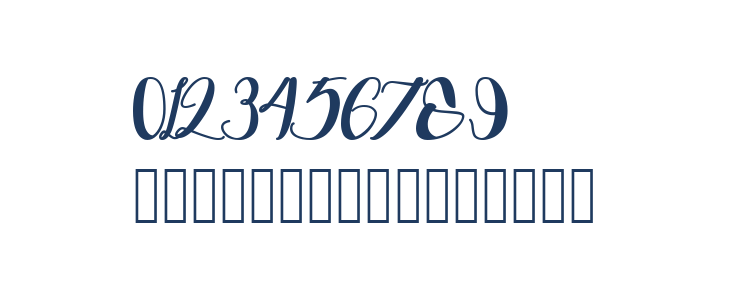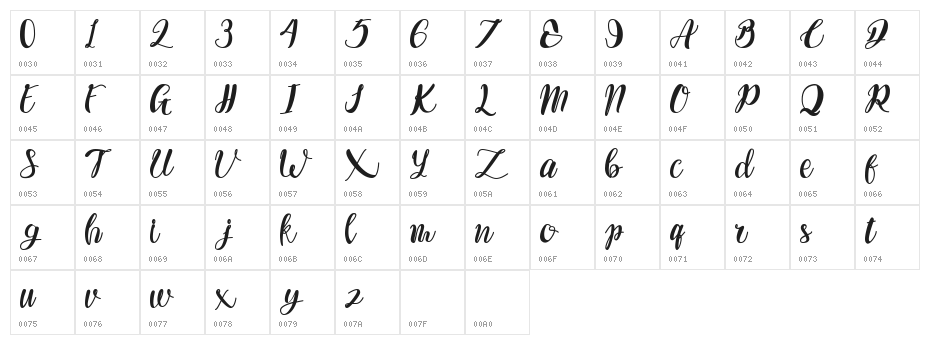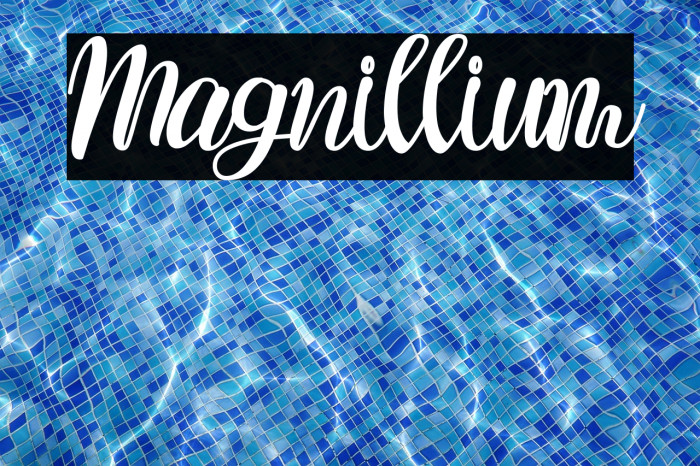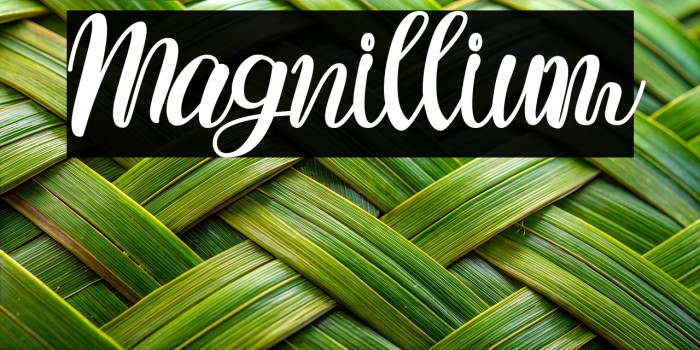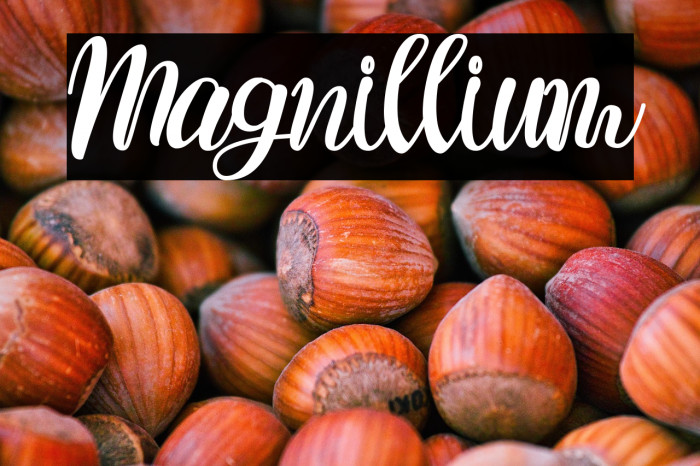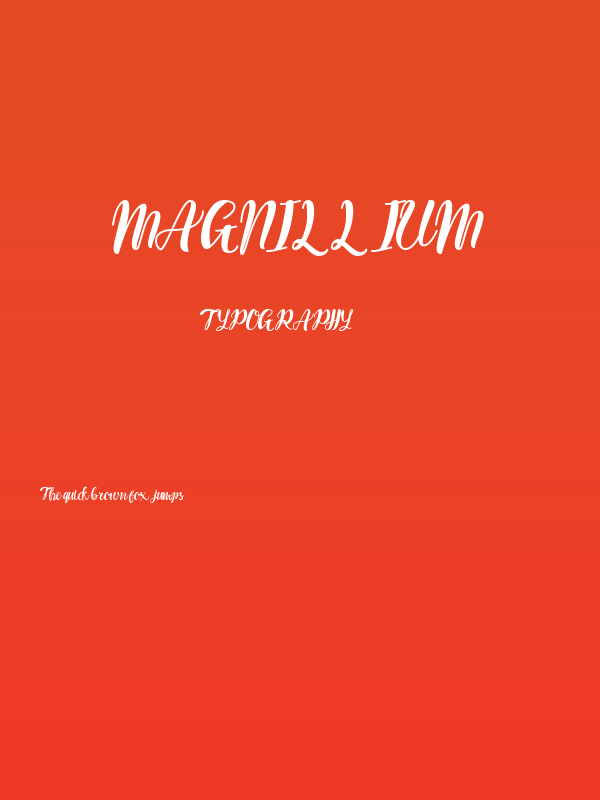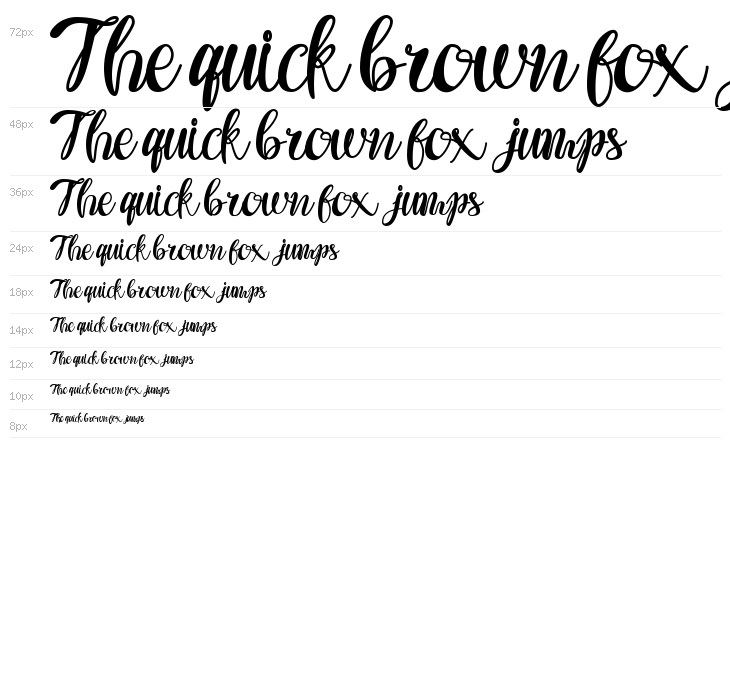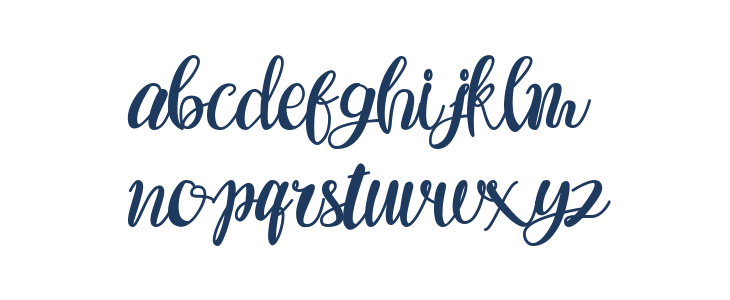
Magnillium Font
Magnillium Description
This font features a flowing, cursive style with elegant, sweeping strokes that give it a sophisticated and artistic appearance. The uppercase letters are bold and dynamic, with a slight slant that adds a sense of movement. The lowercase letters maintain a consistent flow, connecting smoothly to create a harmonious script. Numbers are equally stylish, with unique curves that complement the overall design. Special characters are integrated seamlessly, maintaining the font's cohesive look. The font's high contrast between thick and thin strokes enhances its readability while preserving its decorative charm.